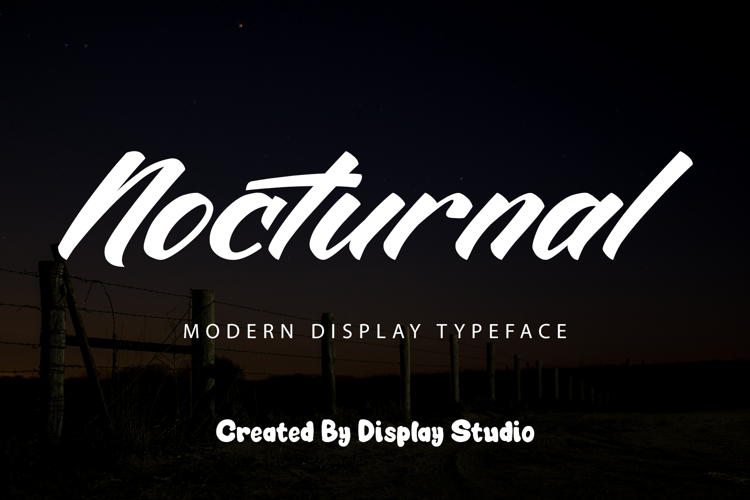
Nocturnal Font
Introducing our new release, Nocturnal Modern Display Typeface. This typeset is perfect for brand logo, invitations, greeting card, or even any kind of project. With multilingual feature and style variations, this typeface would further enhance the aestethical aspect of your work.